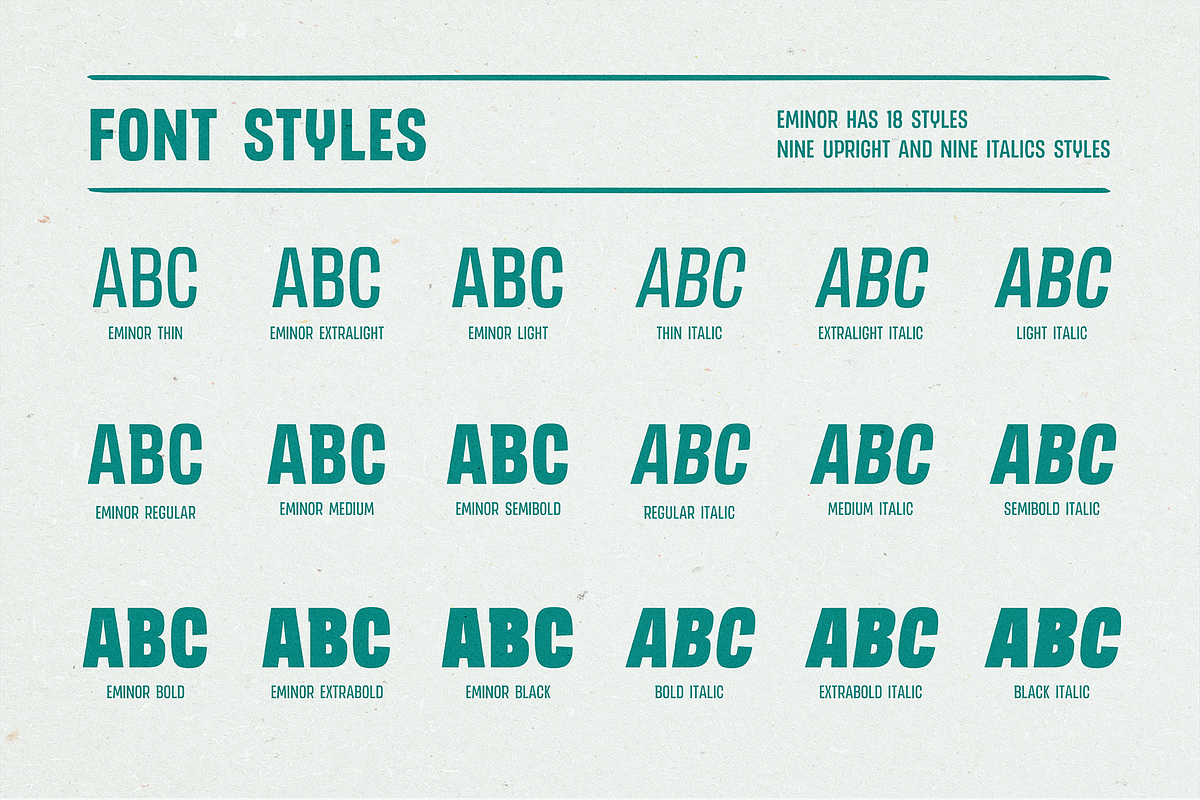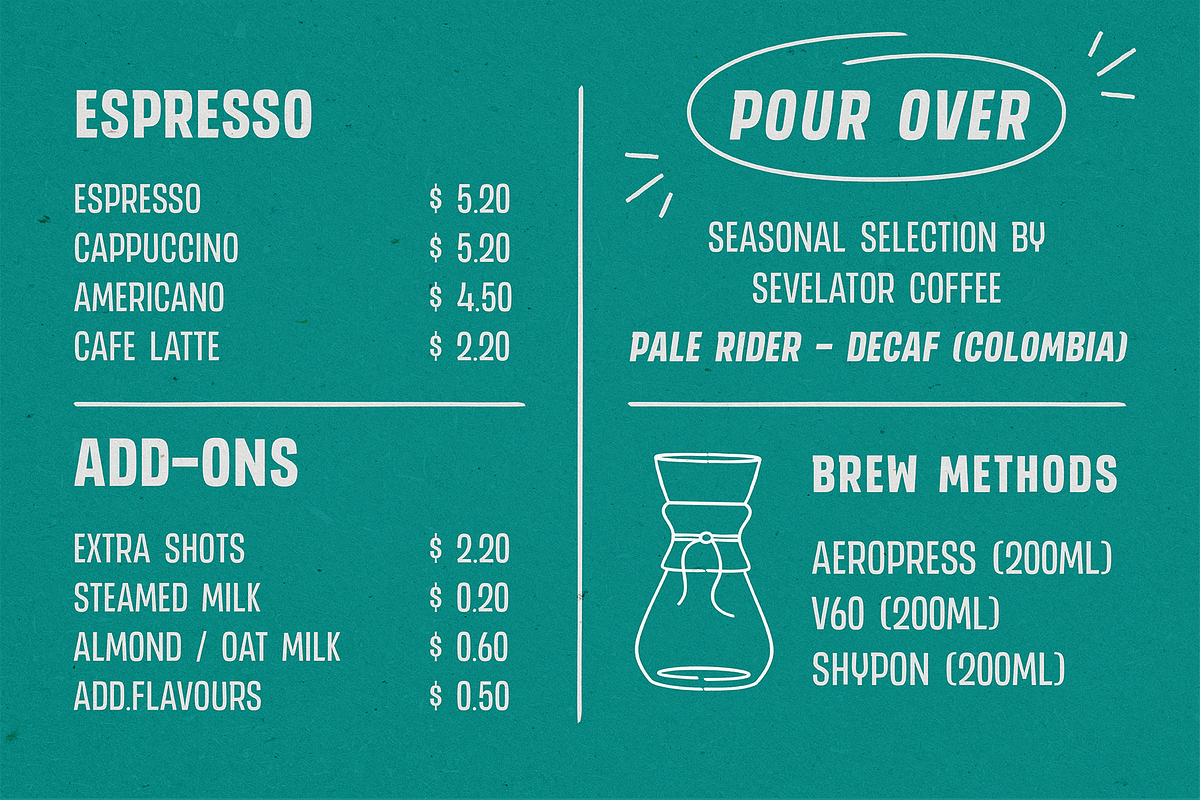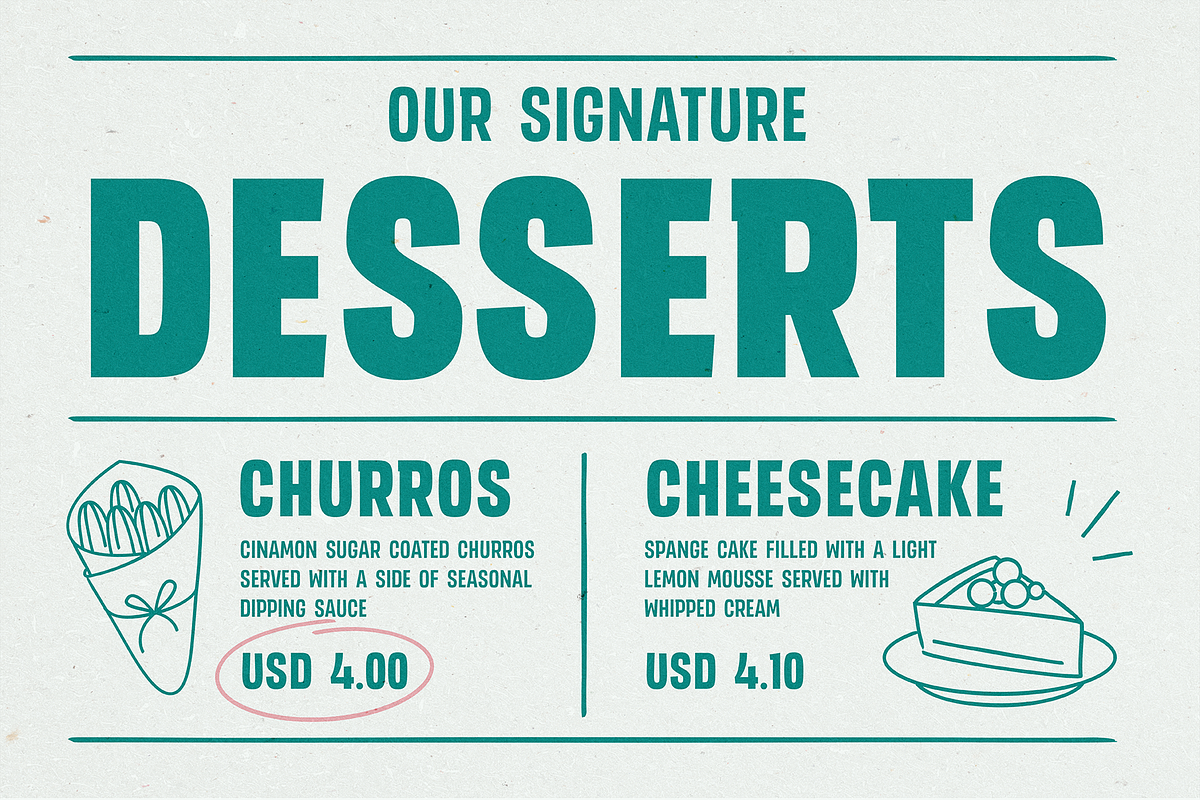
EMINOR
EMINOR is a display typefamily with funny and playful taste. It comes in 9 different weight and two styles in Upright and Italic, from thin to black weight so you can use them to your heart's content.
EMINOR very suitable to use for headlines, wordmark, prints, game logo, logotype, young and playful design or anything else.